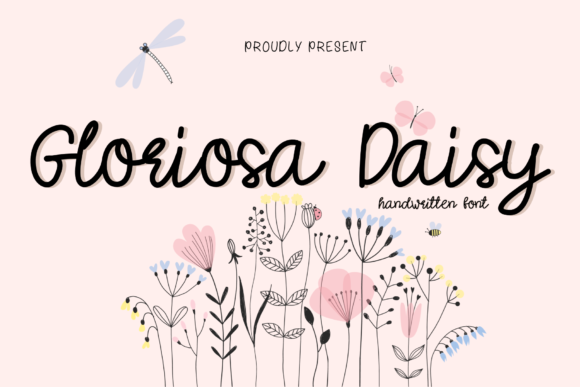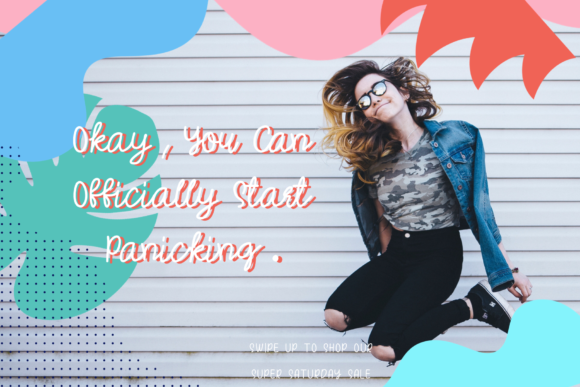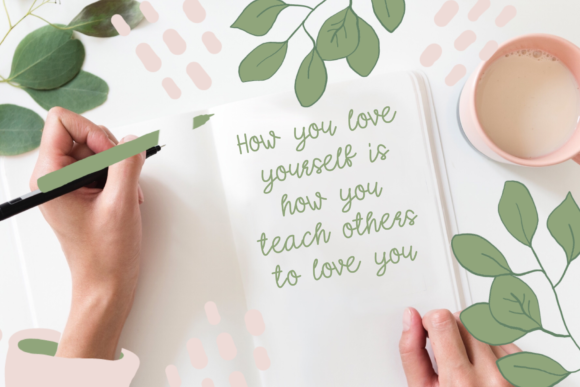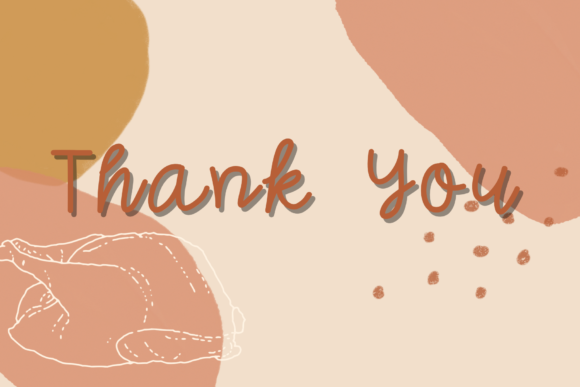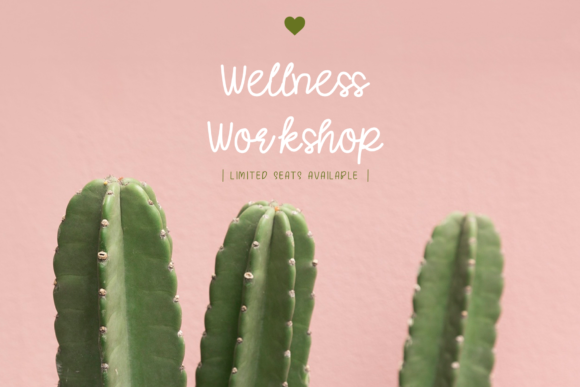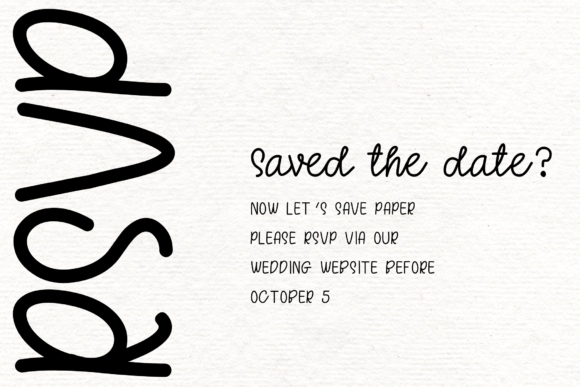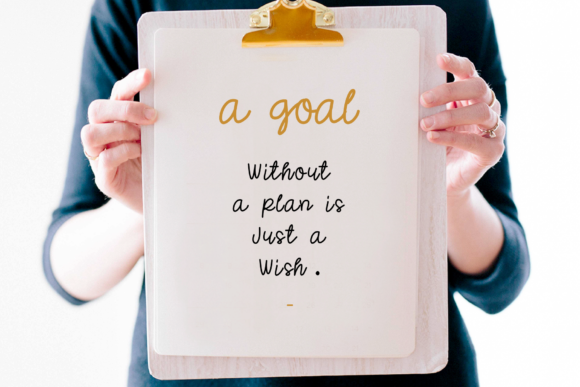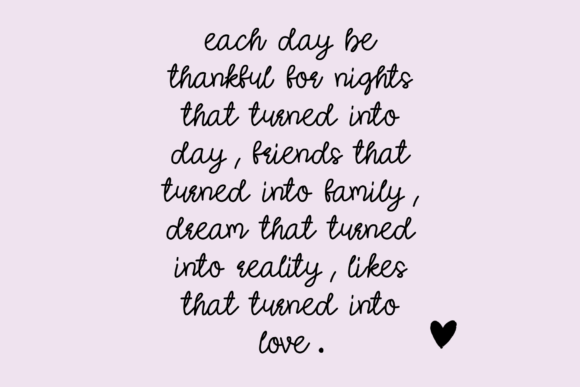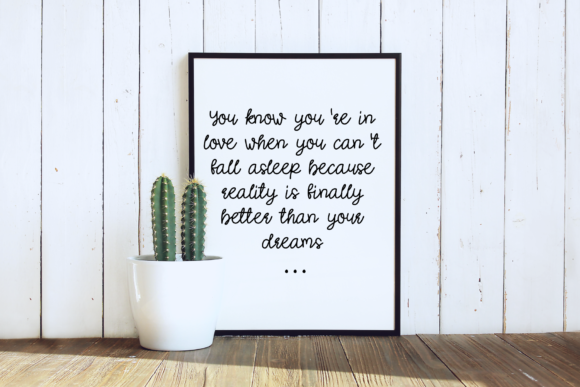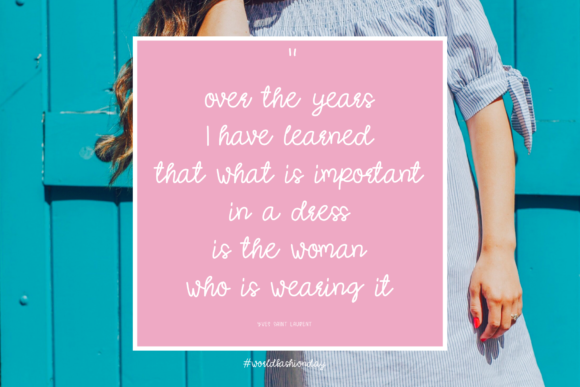
Gloriosa Daisy Font
About Gloriosa Daisy Font
Gloriosa Daisy sounds like a captivating and versatile handwritten font that can add an elegant and stylish touch to a wide range of design projects. With its flowing and distinct style, it offers a timeless appeal that can elevate various creative ideas. Here are some suggestions on how to use Gloriosa Daisy font to create spectacular designs:
1. Wedding Invitations: Design stunning wedding invitations with Gloriosa Daisy font to add a touch of elegance and romance to the special occasion.
2. Greeting Cards: Create beautiful and heartfelt greeting cards for various occasions using Gloriosa Daisy font for warm and personalized messages.
3. Quote Posters: Design inspiring and motivational quote posters using Gloriosa Daisy font to make the words stand out and leave a lasting impact.
4. Branding for Beauty and Fashion: Use Gloriosa Daisy font in branding and logos for beauty and fashion-related businesses to convey a sense of sophistication and style.
5. Blog Titles and Headings: Incorporate Gloriosa Daisy font in blog titles and headings to create a refined and eye-catching design.
6. Social Media Graphics: Design eye-catching social media posts using Gloriosa Daisy font for captions and quotes to engage and captivate your audience.
7. Art Prints: Create beautiful art prints featuring illustrations or photographs with Gloriosa Daisy font for an elegant touch.
8. Stationery Design: Use Gloriosa Daisy font in stationery designs, such as letterheads, notepads, and envelopes, for a polished and cohesive look.
9. Book Covers: Design captivating book covers using Gloriosa Daisy font for a touch of timeless beauty and sophistication.
10. Menu Design: Incorporate Gloriosa Daisy font in menu designs for restaurants, cafes, or special events to add an elegant and inviting touch.
11. Calligraphy Art: Create stunning calligraphy art pieces using Gloriosa Daisy font for an exquisite and artistic look.
12. Magazine Layouts: Use Gloriosa Daisy font in magazine layouts for articles or content that require an elegant and distinct typography.
13. Inspirational Prints: Design prints with motivational messages or affirmations using Gloriosa Daisy font for a touch of positivity and encouragement.
14. Event Flyers: Create eye-catching event flyers using Gloriosa Daisy font to draw attention and create a sense of elegance for the occasion.
15. Packaging Design: Incorporate Gloriosa Daisy font in packaging designs for products that require a sophisticated and charming appearance.
16. Logo Designs for Florists: Use Gloriosa Daisy font in logos and branding for floral shops and florists to represent their craft and elegance.
17. Artistic Wedding Signage: Design artistic wedding signage and decorative elements using Gloriosa Daisy font for a personal and romantic touch.
18. Blog Graphics: Use Gloriosa Daisy font in blog graphics and featured images to add a touch of elegance and uniqueness to your content.
19. Social Media Banners: Create elegant and eye-catching social media banners using Gloriosa Daisy font to promote special offers or events.
20. Customized Gifts: Personalize gifts with Gloriosa Daisy font for a heartfelt and meaningful touch on special occasions.
In summary, Gloriosa Daisy is a flowing handwritten font with an elegant and distinct style, making it ideal for various projects that require a touch of sophistication and charm. Whether it’s for weddings, branding, social media, or any other creative endeavor, Gloriosa Daisy font can add a timeless and beautiful touch to your designs, making them truly spectacular and memorable!